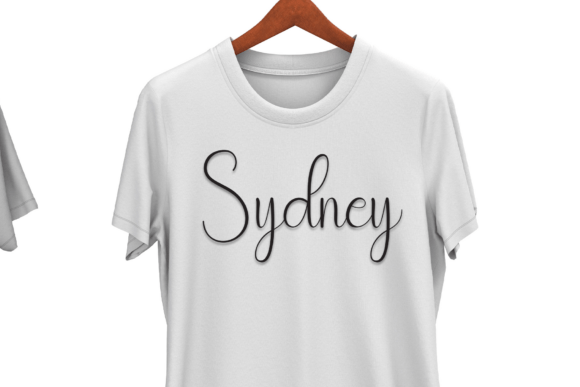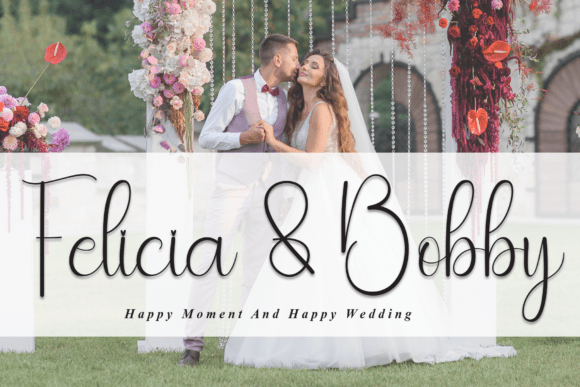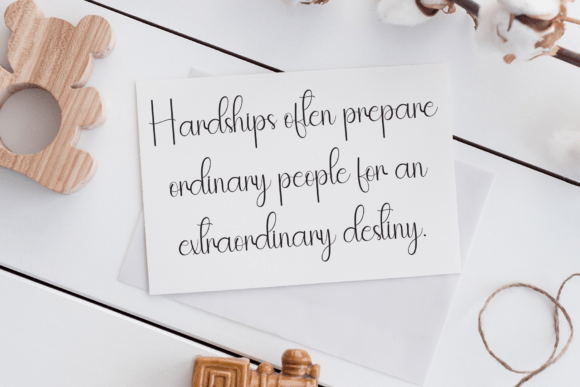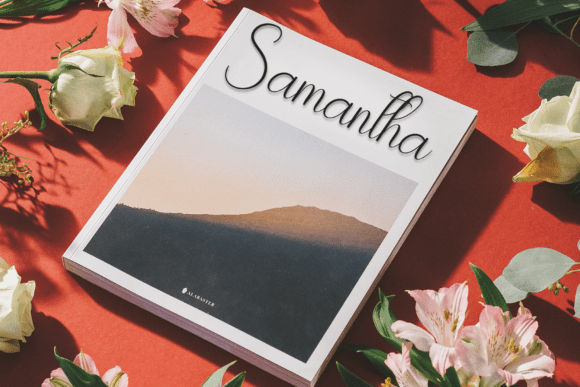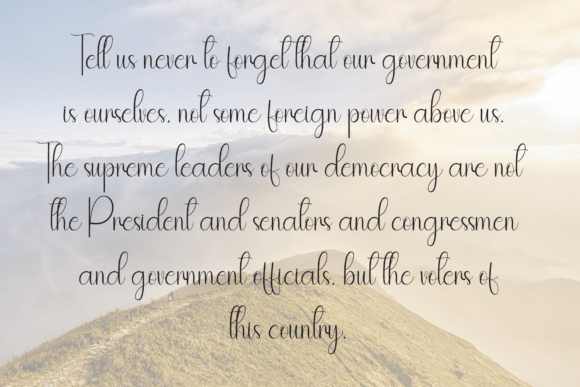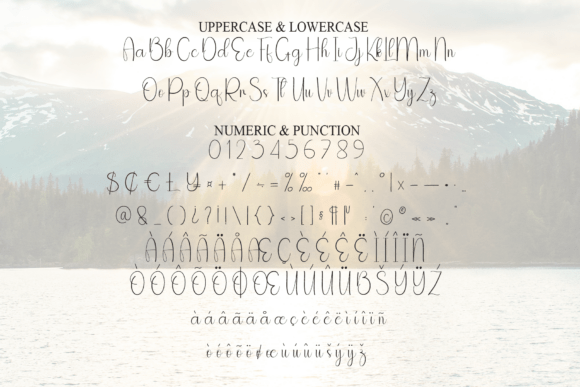
Introducing Brightday Font: Elevate Your Designs with Elegance and Playfulness
In the world of typography, fonts play a crucial role in conveying the tone and personality of a design. For designers and crafters looking to add a touch of modern elegance and playfulness to their projects, Brightday Font is an excellent choice. This stylish handwritten script font is designed to blend sophistication with a charming, personal feel, making it perfect for a variety of applications, from logos and packaging to invitations and more.
The Characteristics of Brightday Font
Brightday Font stands out with its fluid strokes and charming curves, which give it a unique and distinctive appearance. The font’s modern elegance is balanced by a playful touch, making it versatile enough to be used in various design contexts. Its handwritten nature adds a personal and approachable feel to any project, allowing designers to create works that are both sophisticated and relatable.
Key Features of Brightday Font
- Modern Elegance: Brightday Font boasts a contemporary aesthetic that fits well with current design trends. Its sleek lines and refined appearance make it suitable for high-end projects.
- Playful Touch: Despite its elegance, the font retains a playful charm that can add a unique character to designs. This balance makes it ideal for projects that require a bit of personality.
- Fluid Strokes and Charming Curves: The fluidity of the strokes and the curves in Brightday Font contribute to its dynamic and engaging appearance. These features help in creating visually appealing texts that capture the audience’s attention.
- Versatility: Brightday Font is incredibly versatile, making it suitable for a wide range of applications. Whether you’re working on a logo, packaging, invitations, or any other design project, this font can help you achieve your desired look.
Applications of Brightday Font
Given its elegant yet playful nature, Brightday Font can be used in numerous design projects. Here are some of the ideal applications:
- Logos: Create memorable and stylish logos that stand out. Brightday Font’s unique appearance can help brands establish a distinctive identity.
- Packaging: Enhance your product packaging with a font that combines elegance and playfulness. Brightday Font can make your products more appealing to potential customers.
- Invitations: Whether it’s a wedding invitation, a birthday party invite, or any other event, Brightday Font can add a touch of sophistication and charm, setting the tone for the occasion.
- Marketing Materials: From brochures to flyers, Brightday Font can help your marketing materials look more professional and engaging.
Tips for Using Brightday Font Effectively
To make the most out of Brightday Font, consider the following tips:
- Pair it with Other Fonts: While Brightday Font is beautiful on its own, pairing it with complementary fonts can enhance its appearance. Choose fonts that complement its elegance and playfulness.
- Experiment with Sizes and Colors: Don’t be afraid to experiment with different sizes and colors. Brightday Font can look stunning in various sizes and colors, making it easy to adapt to different design needs.
- Use it for Headlines and Titles: Its unique appearance makes Brightday Font perfect for headlines and titles. Use it to draw attention and add personality to your designs.
Brightday Font is a versatile and stylish handwritten script font that can elevate your designs with its modern elegance and playful touch. Its fluid strokes and charming curves bring a personal feel to any project, making it ideal for a variety of applications. Whether you’re a designer or a crafter, Brightday Font offers the perfect combination of sophistication and creativity to make your projects stand out. Explore the possibilities with Brightday Font and discover how it can transform your designs.